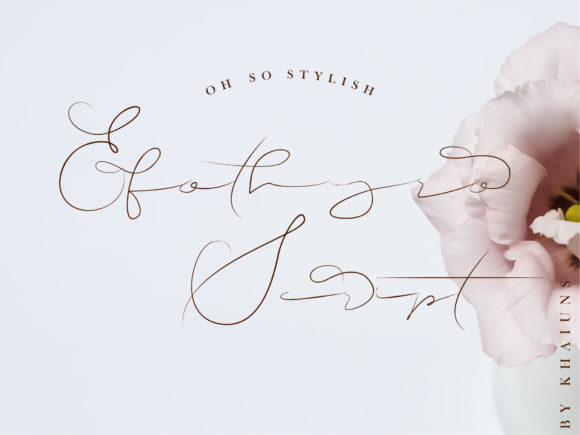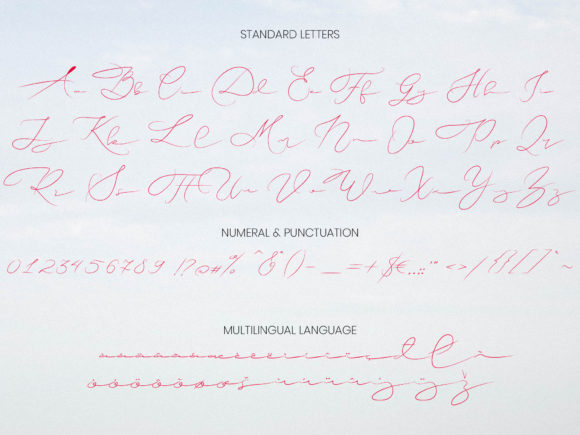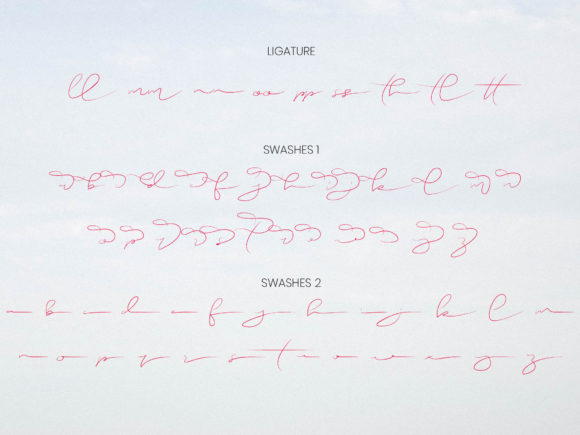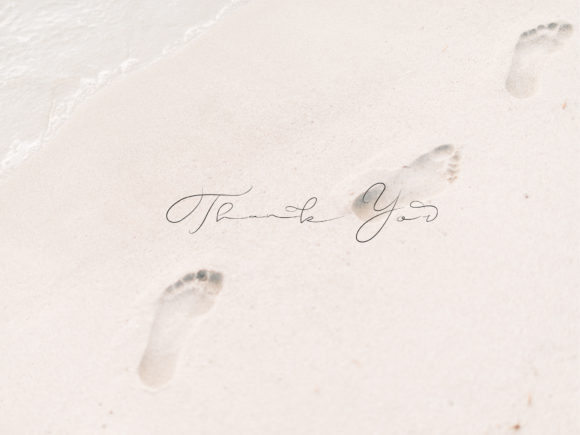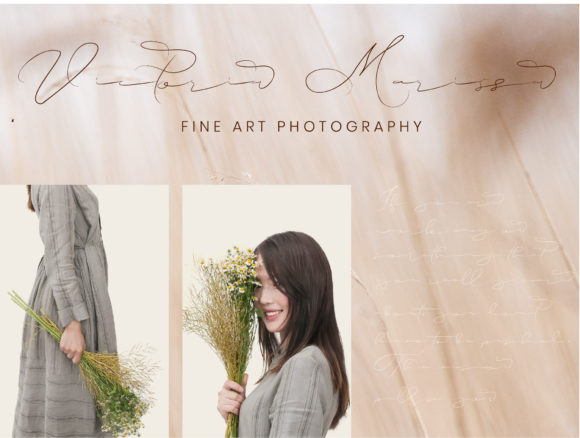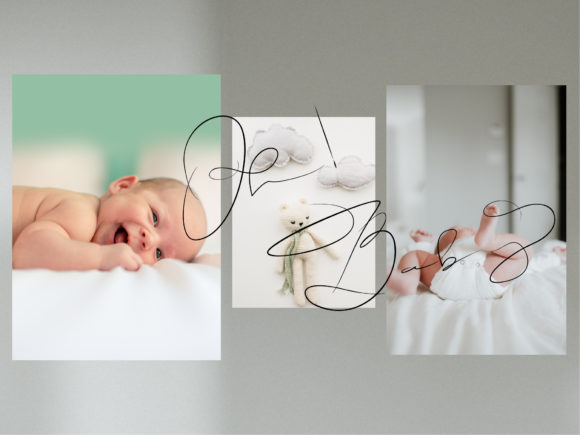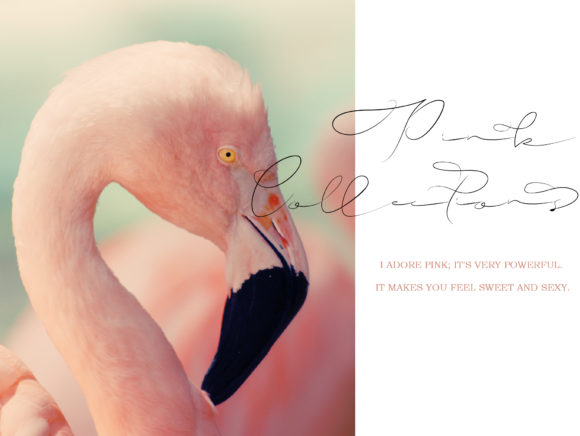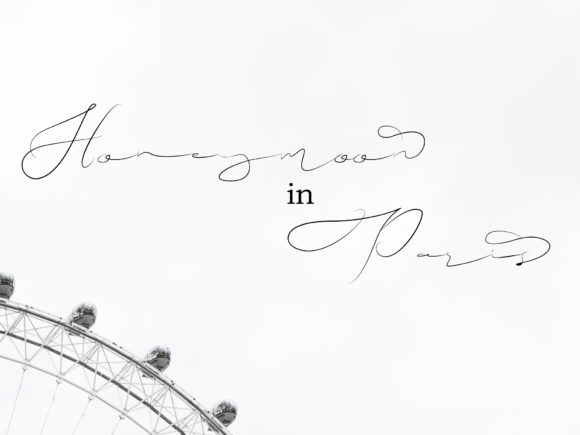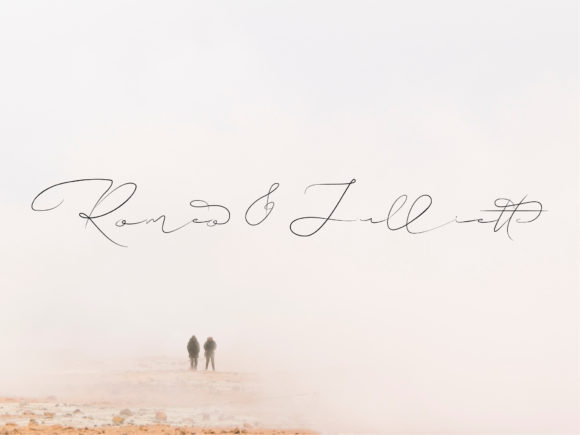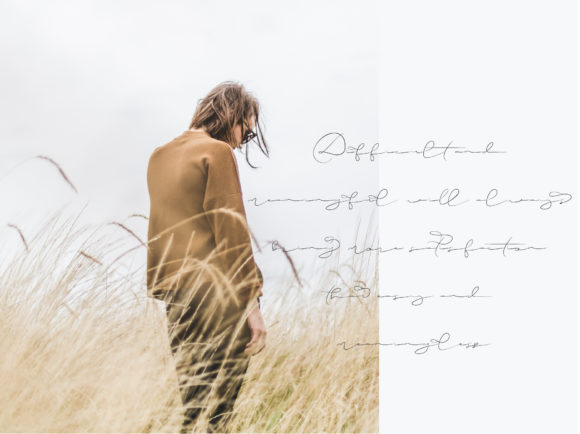
HomeScript FontsEfothyro Font Script Fonts Efothyro Font FacebookXPinterestWhatsApp Efothyro Font Poster 2 Efothyro Font Poster 3 Efothyro Font Poster 4 Efothyro Font Poster 5 Efothyro Font Poster 6 Efothyro Font Poster 7 Efothyro Font Poster 8 Efothyro Font Poster 9 Efothyro Font Poster 10 Efothyro Font Poster 11 Efothyro Font Poster 12 About Efothyro Font Efothyro is an equally modern and chic script that will add a personal twist on any design idea! DOWNLOAD ON CREATIVE FABRICAThis font is sold and delivered by Creative Fabrica. Font Canyon may earn a commission if you buy through this link. People also explored Believe Font Hamocky Font Mother Lover Font Urial Font Brotherline Font Regyman Font Nevalm Font Blink Font Stanger 317 0 TagsEfothyro Font Previous articleFuture FontNext articleAudrey Font LEAVE A REPLY Cancel reply Comment: Please enter your comment! Name:* Please enter your name here Email:* You have entered an incorrect email address! Please enter your email address here Website: Save my name, email, and website in this browser for the next time I comment. Personal Use Free New Normal Personal Use Free Read more about this font Time for Presents Personal Use Free Read more about this font Angola Beach Personal Use Free Read more about this font The Relapse Personal Use Free Read more about this font BLOG How to Cut Any Font on Cricut: Convert a Font to SVG (Free) Turn any font into a clean SVG so it cuts crisp on Cricut - a quick 3-step workflow using a free font-to-SVG tool. The 10 Best Handwriting Fonts to Add Personality to Your Designs How to Install and Use Fonts on Windows, macOS, and Web Projects Free Fonts Risk: Why Free Fonts Can Be Dangerous for Designers